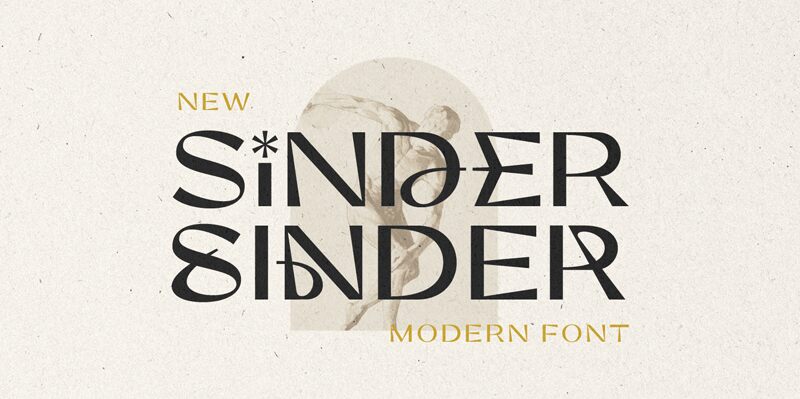
Sinder, crafted by the talented Saridezra, is a display font that commands attention with its semi-light weight and expanded width. The distinct aesthetic of Sinder is characterized by a harmonious blend of elegance and modernity, making it an excellent choice for designers looking to add a touch of sophistication to their creative projects.
The font's expanded letterforms exude confidence, while its semi-light weight offers a subtle delicacy. This unique combination creates an inviting visual rhythm that's both eye-catching and readable. Sinder's expansive character set ensures versatility across various applications, from editorial design to branding and beyond.
Whether you're aiming to make a bold statement on a poster or seeking an understated yet impactful touch for your website typography, Sinder brings a fresh perspective to the table. Its style speaks volumes about its ability to elevate any design project with finesse and flair.